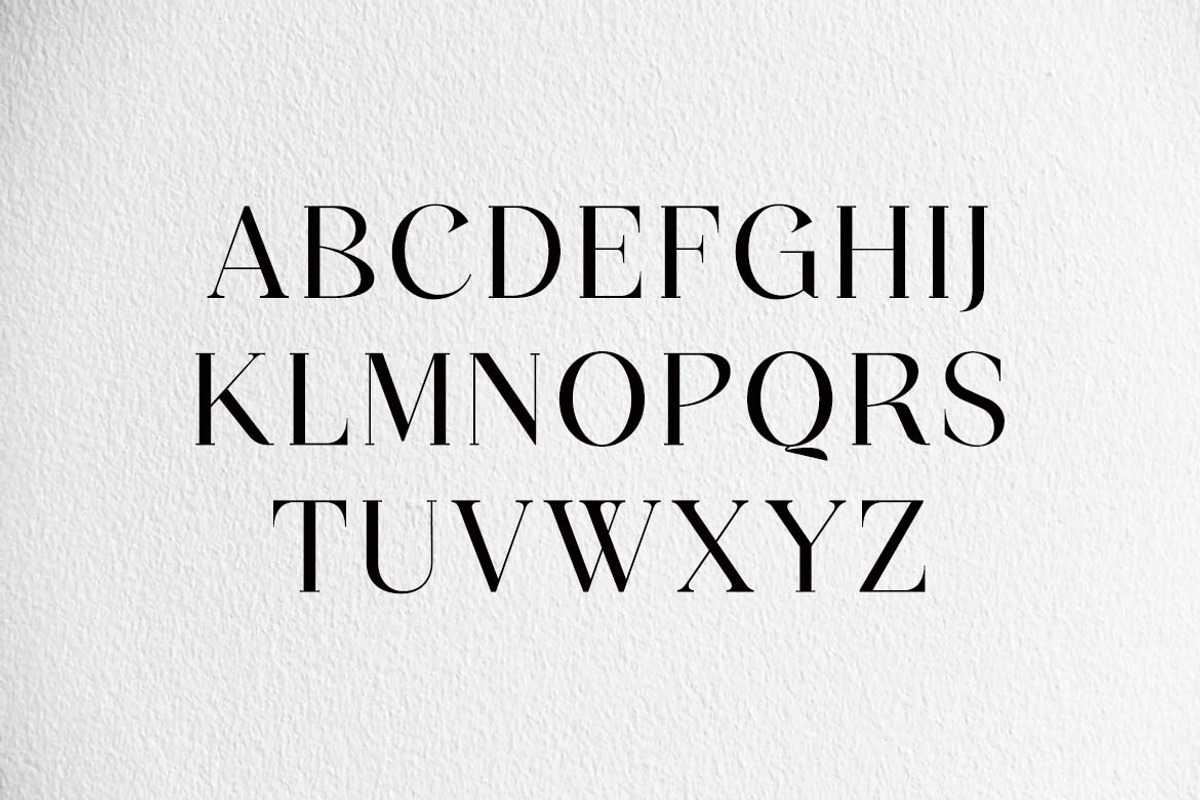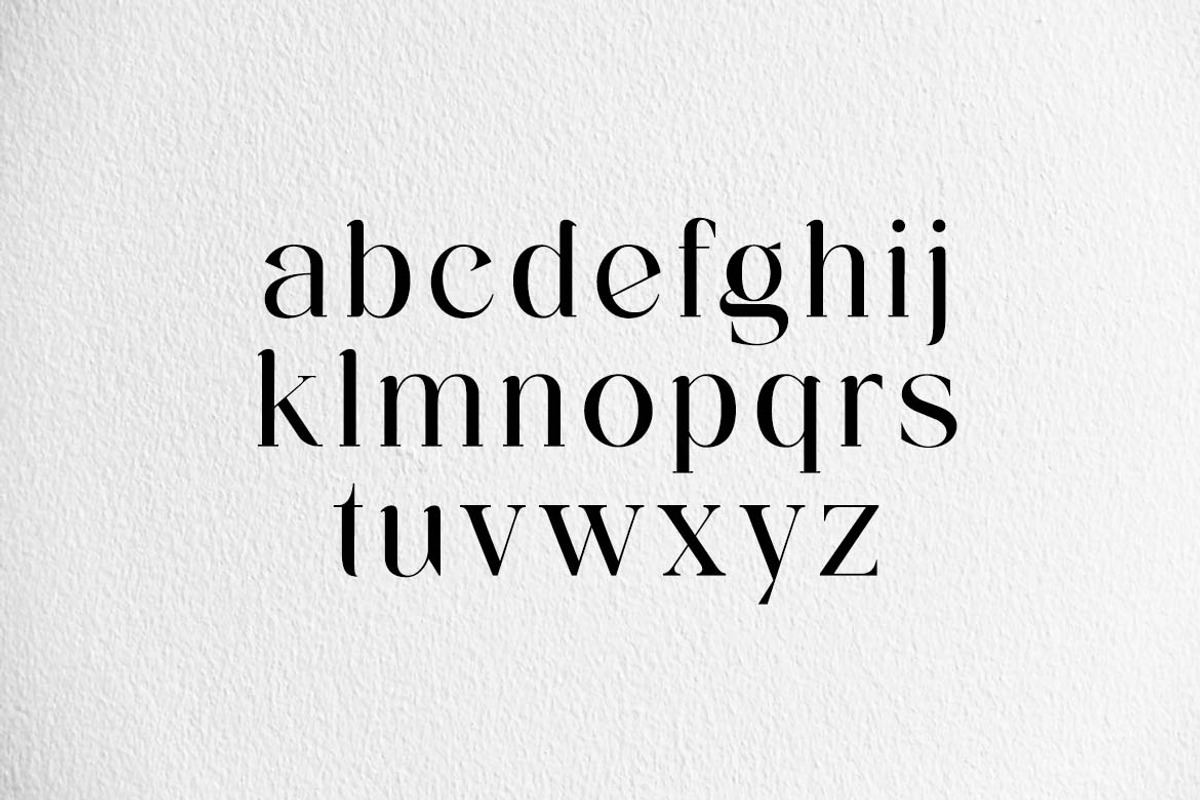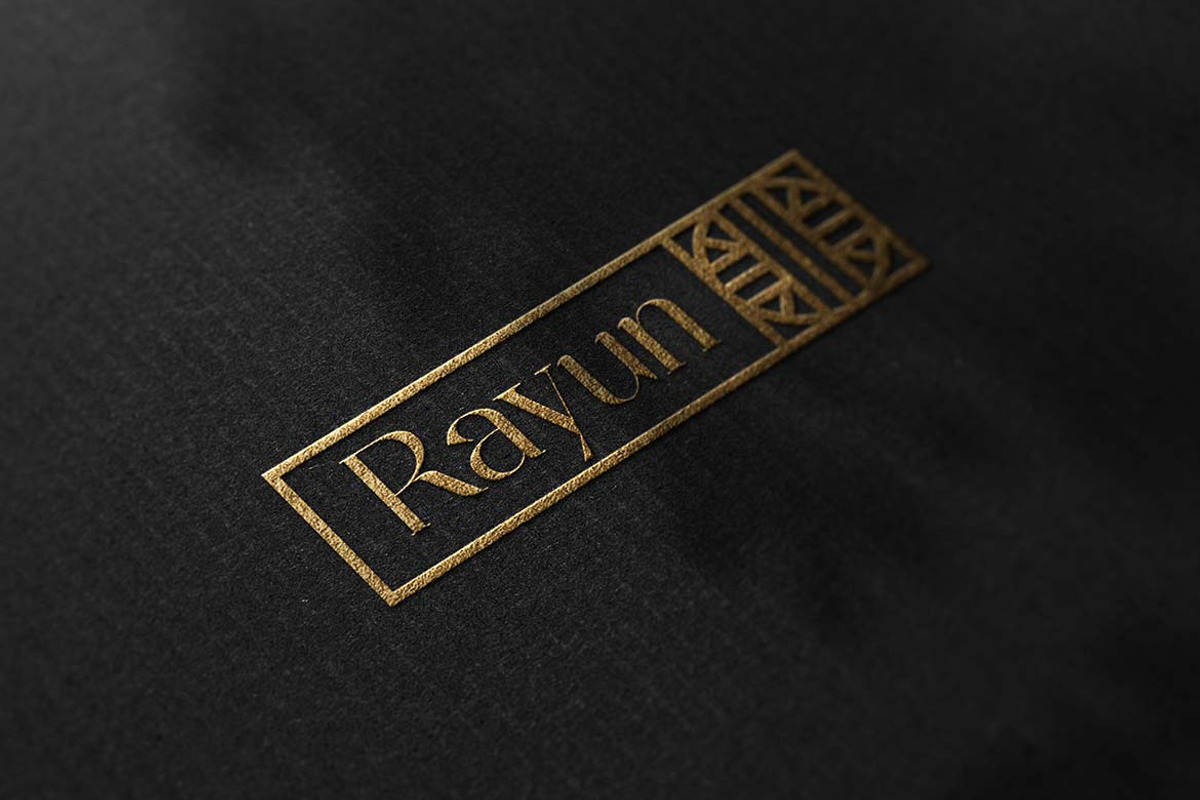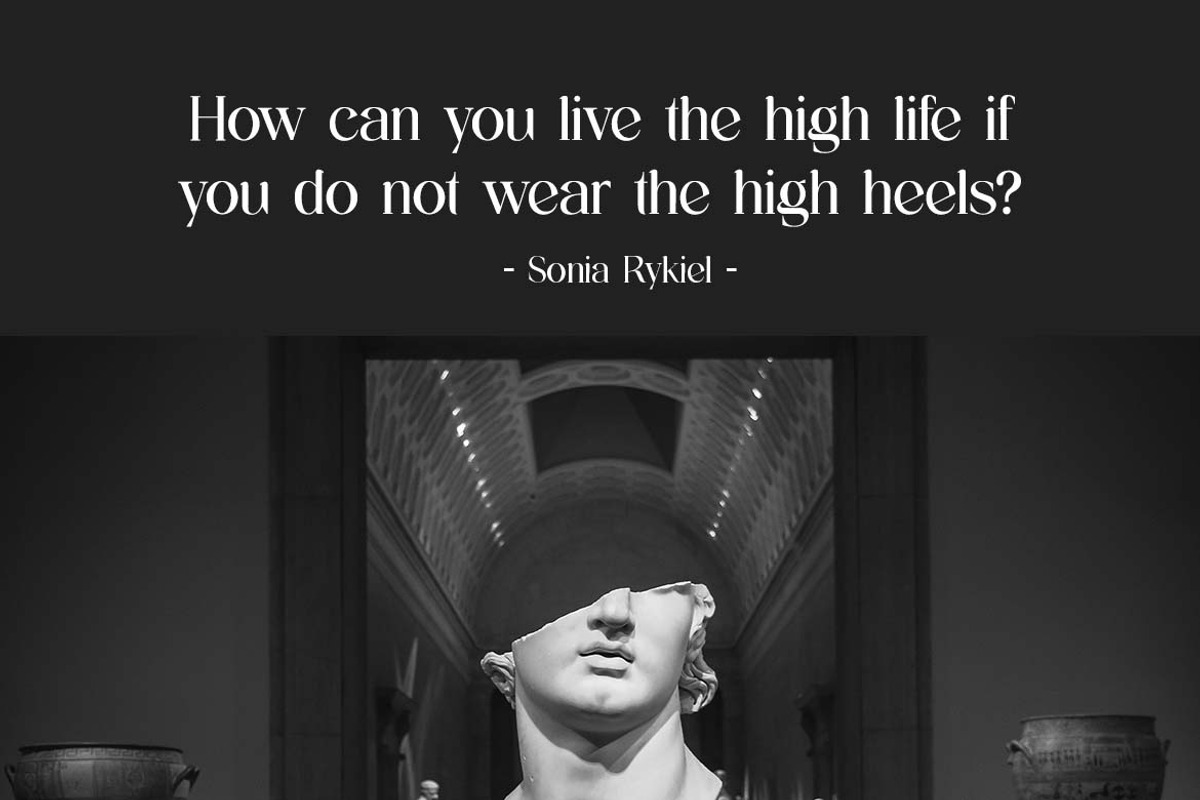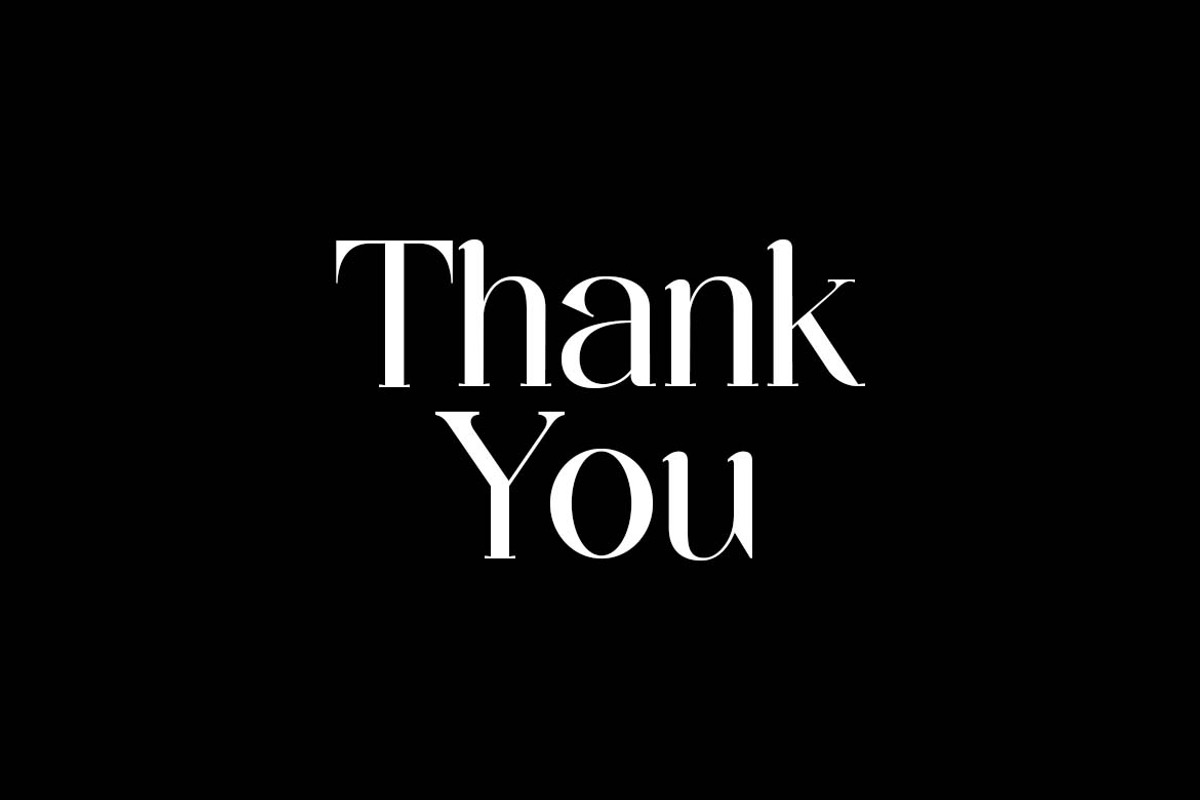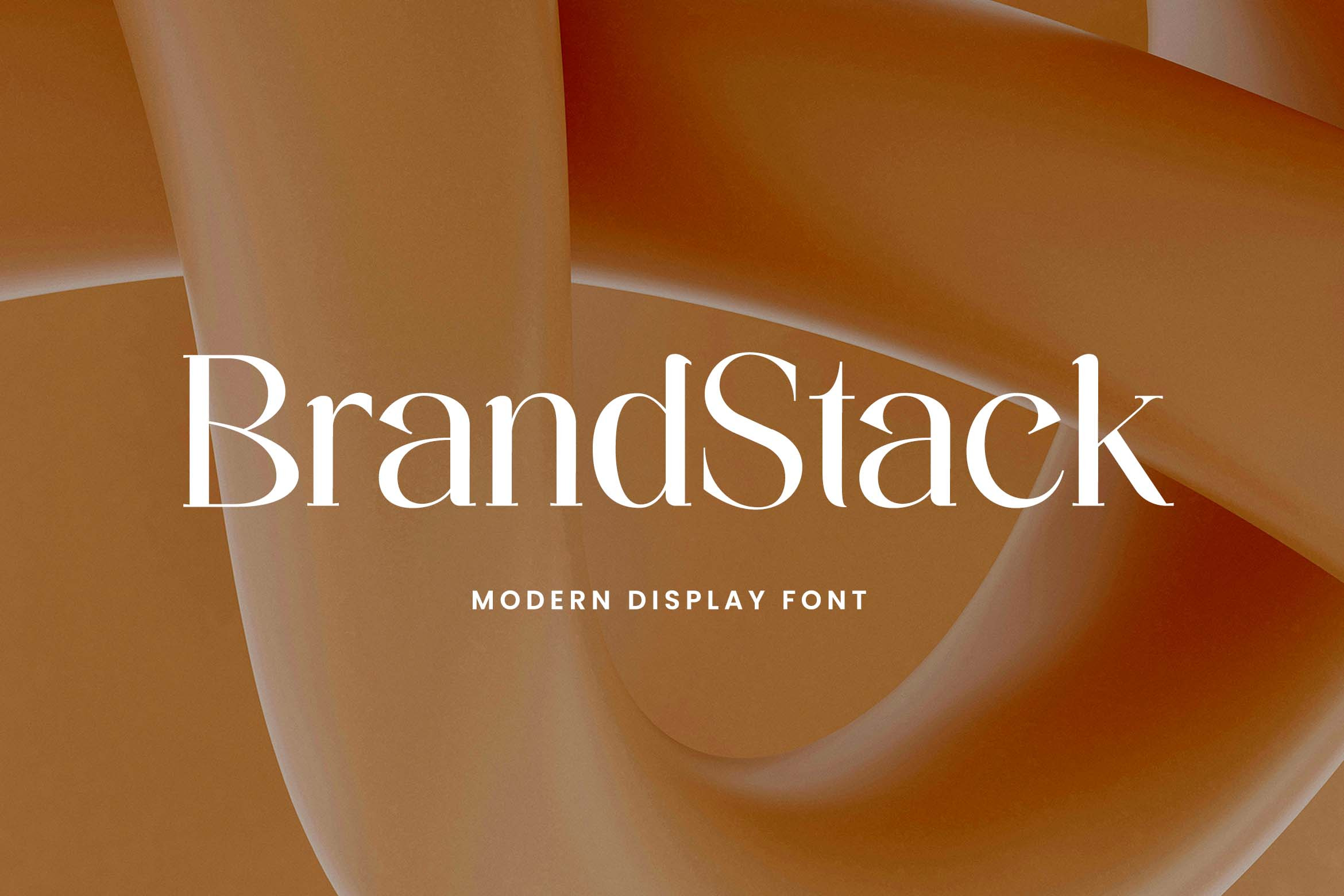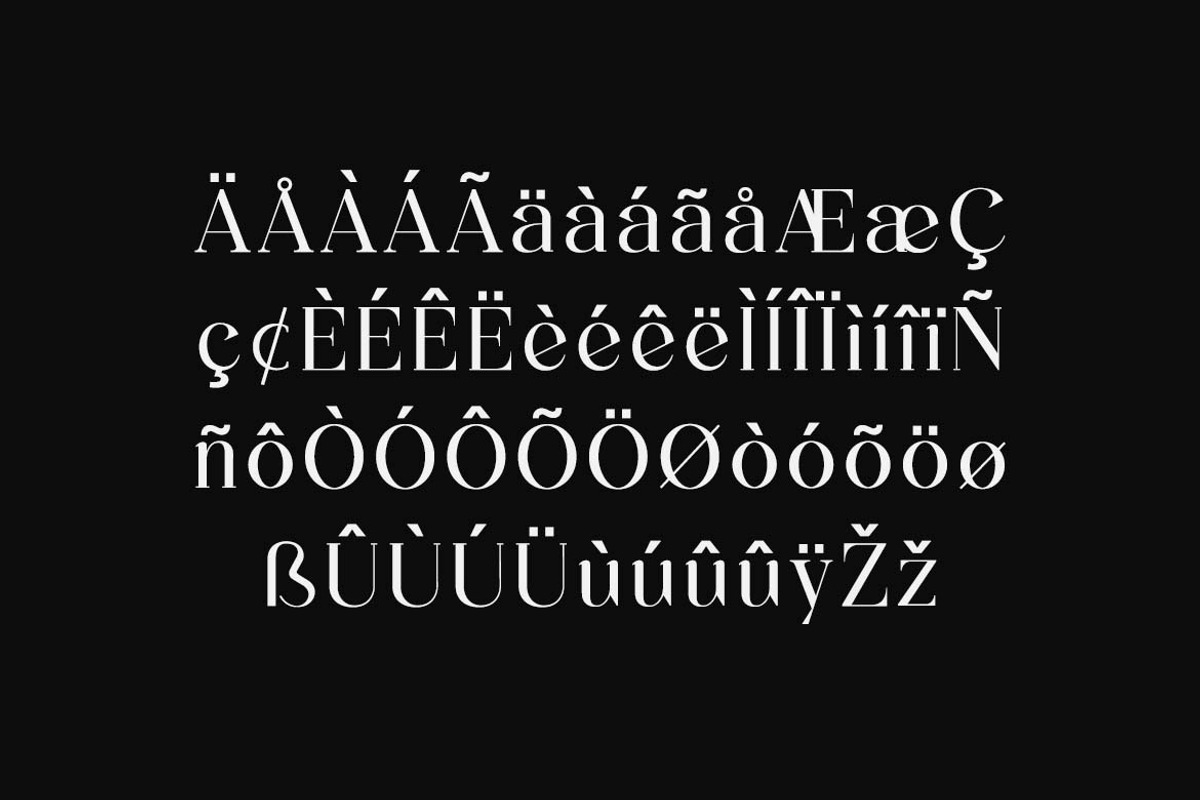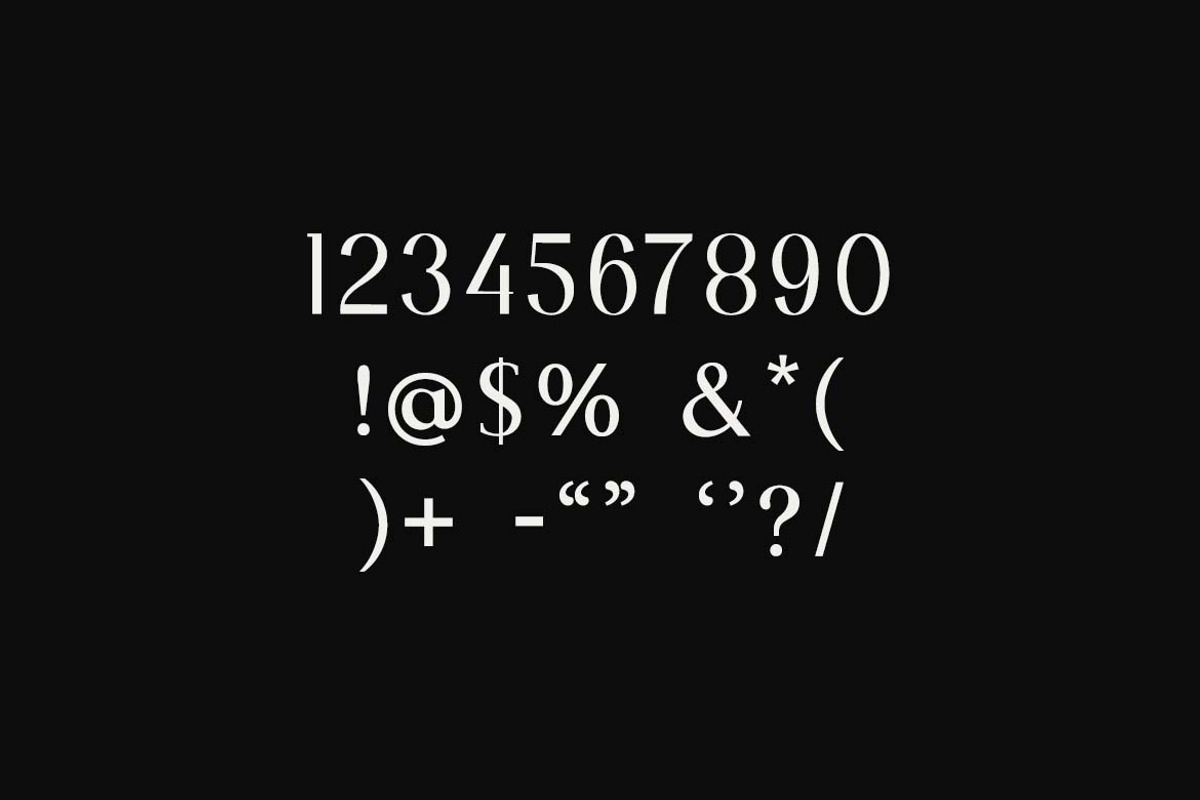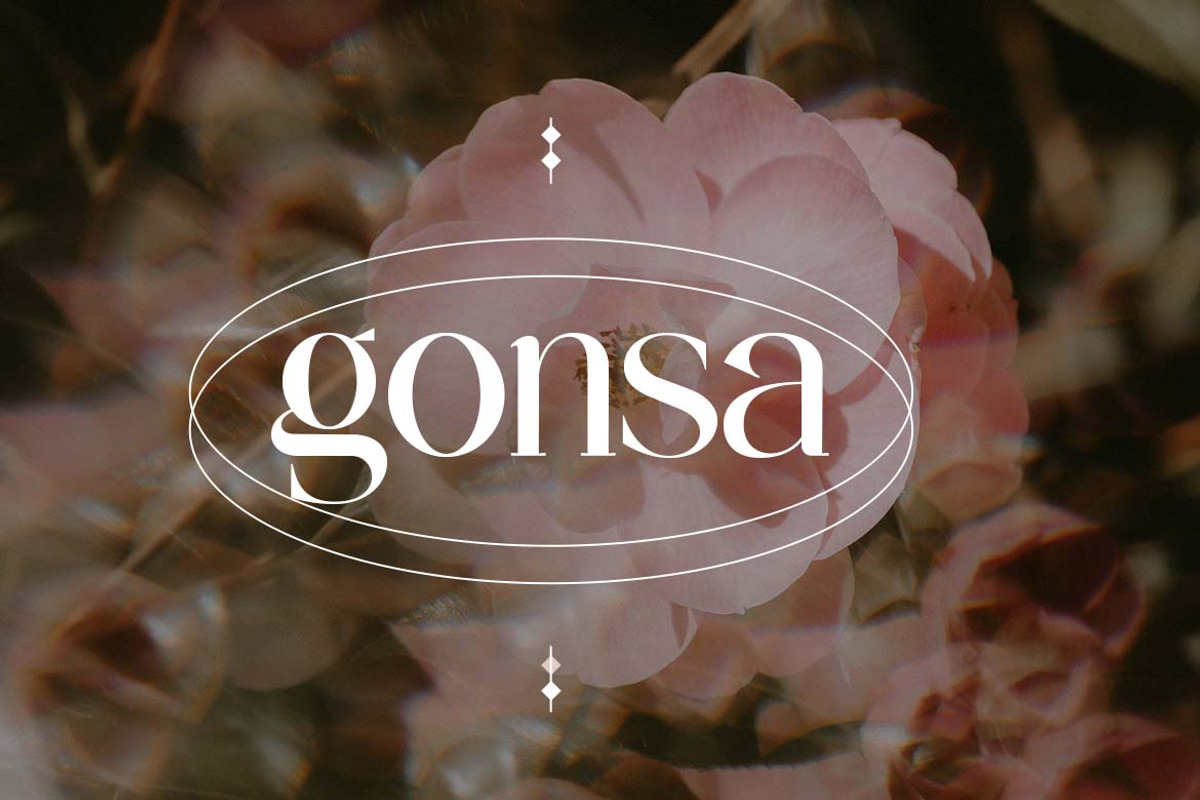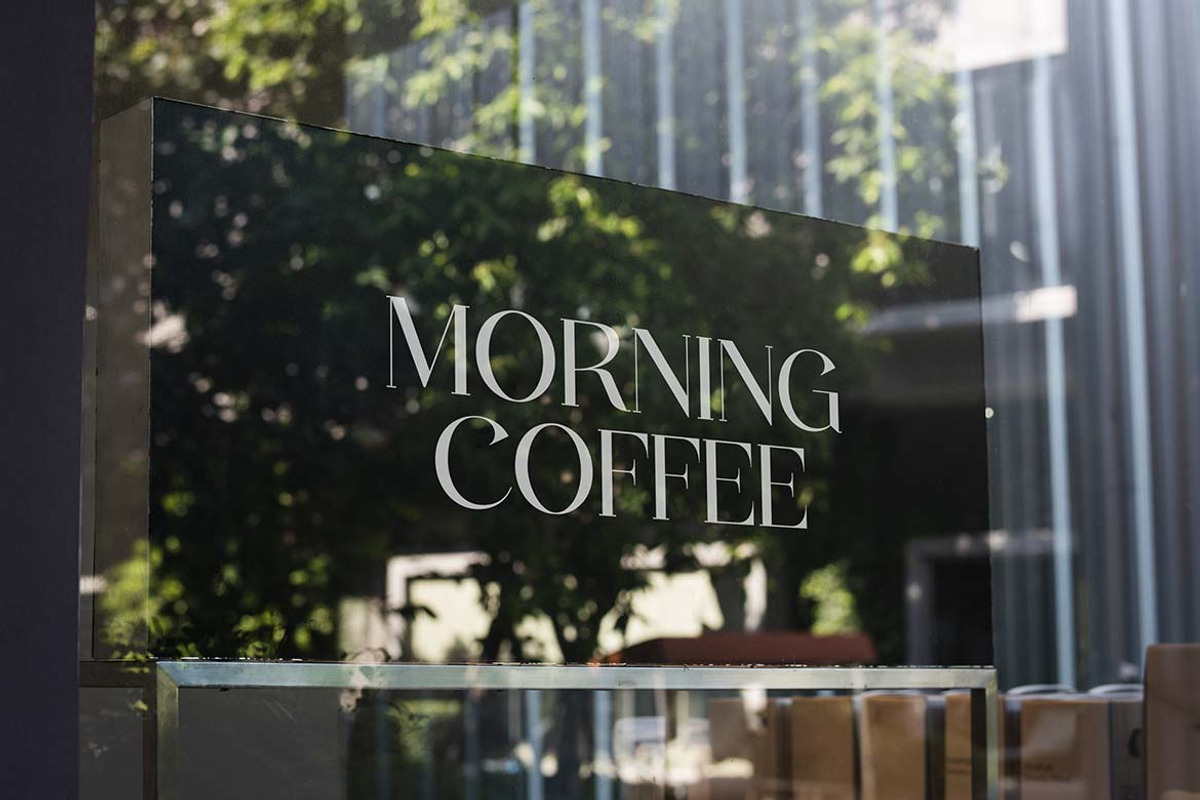
BrandStack Modern Display Font
BrandStack Modern Display Font. The modern display font feels beautiful classy, elegant, and stylish. This font is ideally suited for a wide variety of projects, such as signature, stationery, logo, wedding, typography quotes, magazine or book covers, website headers, branding, and more. Also, fashion-related branding or editorial design displays both masculine and feminine qualities.